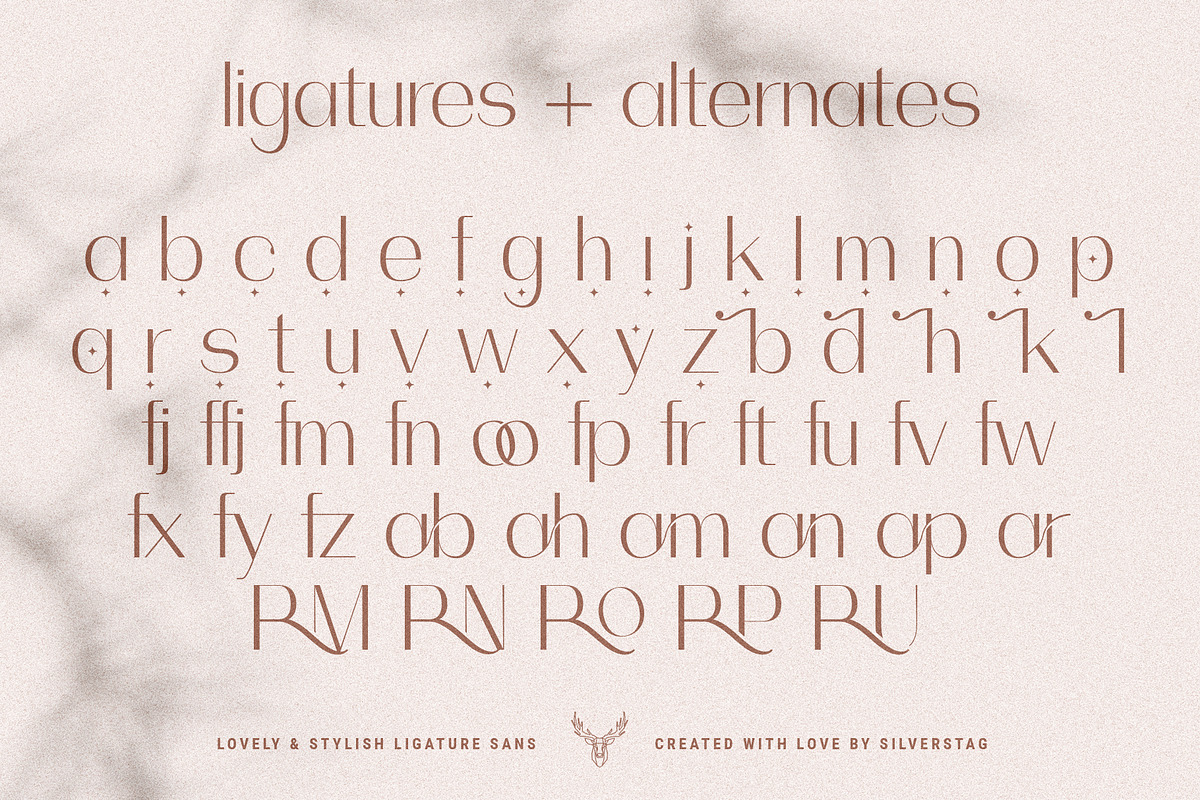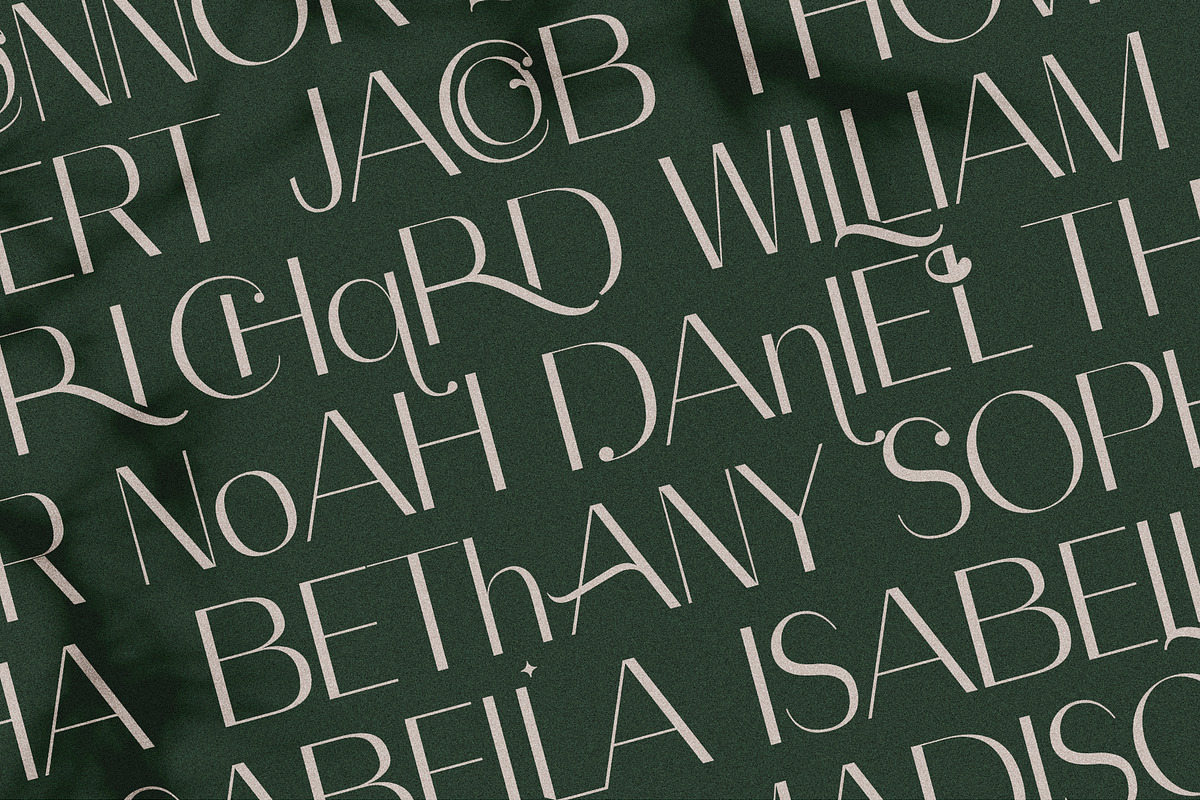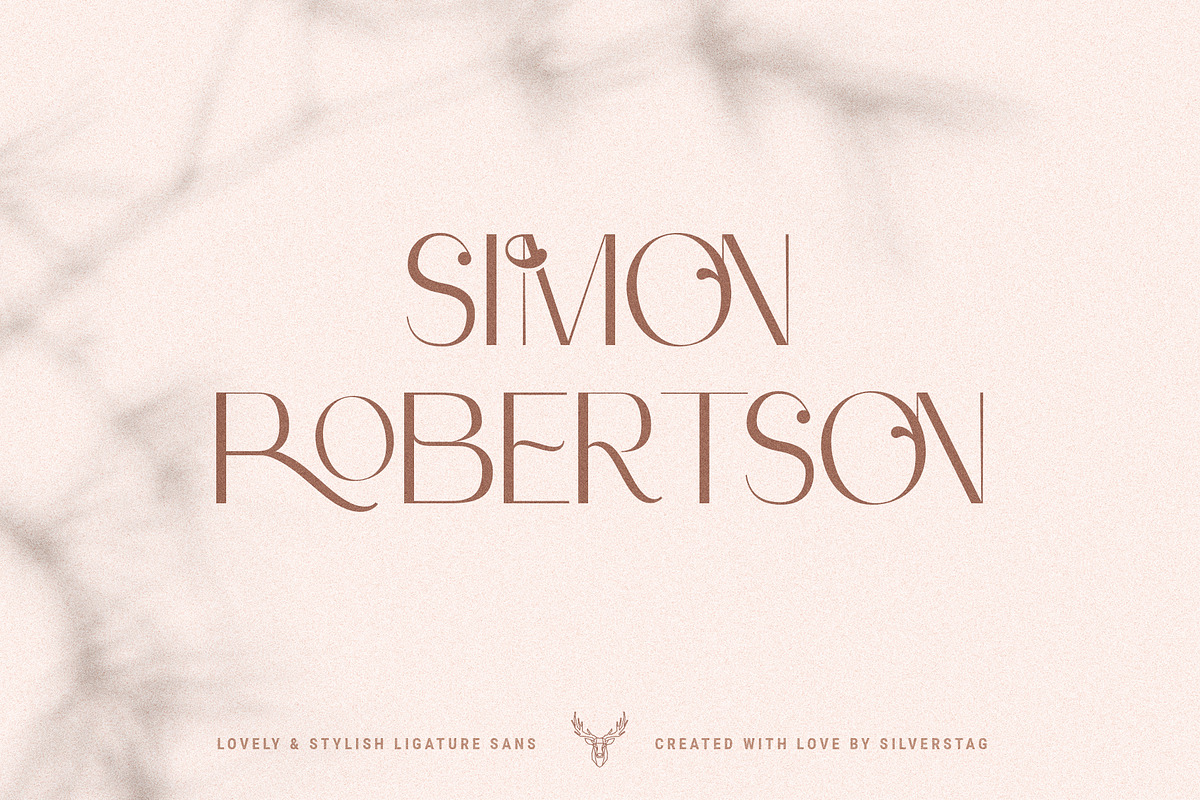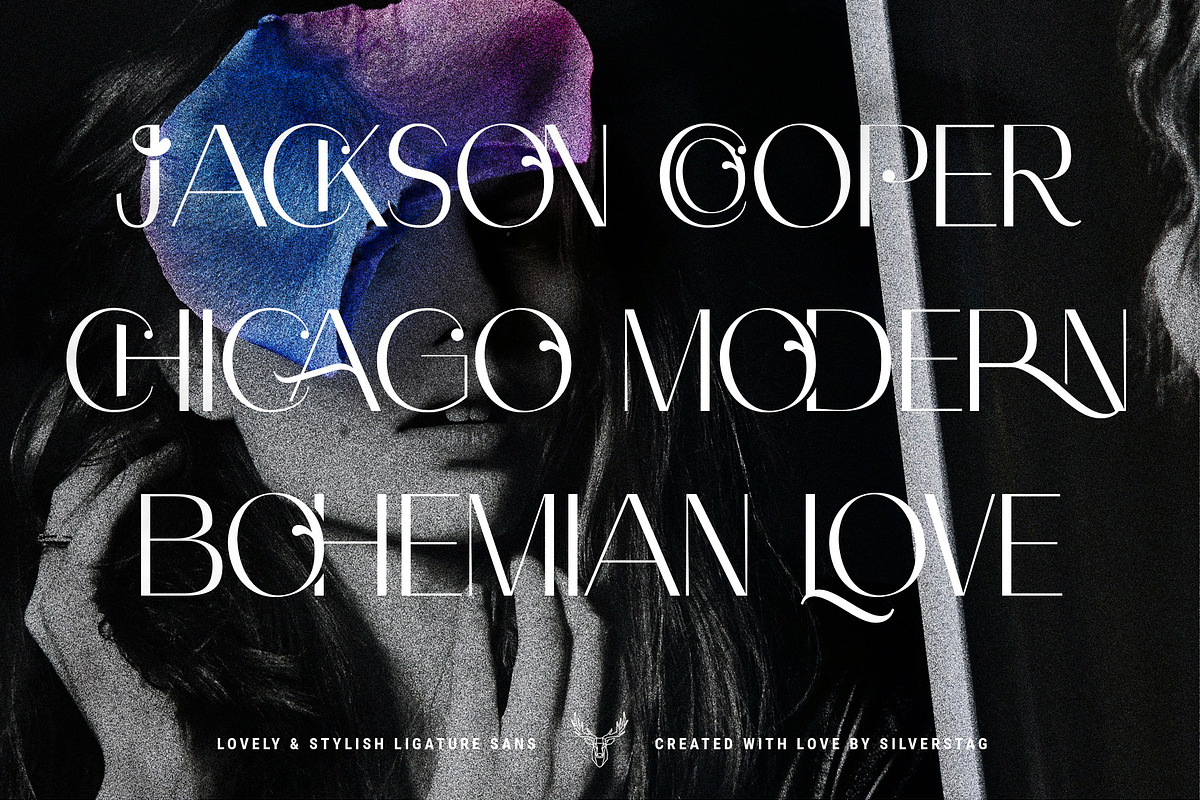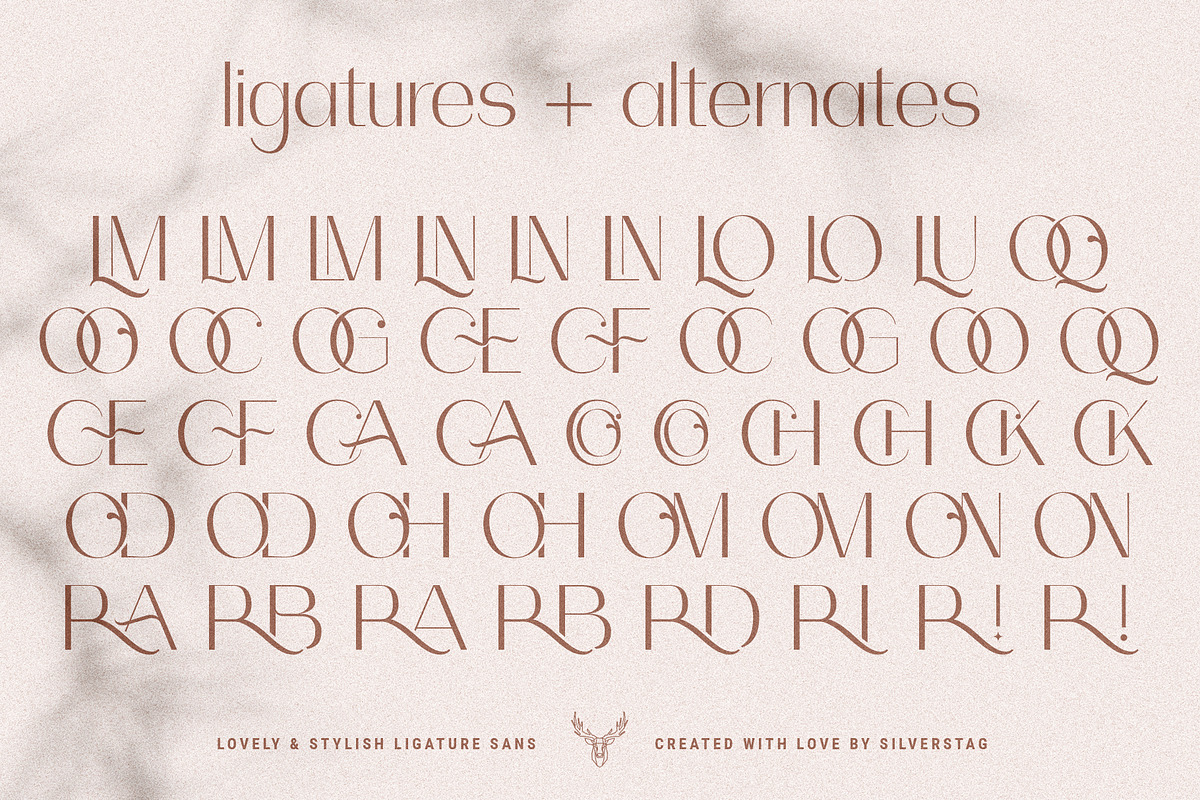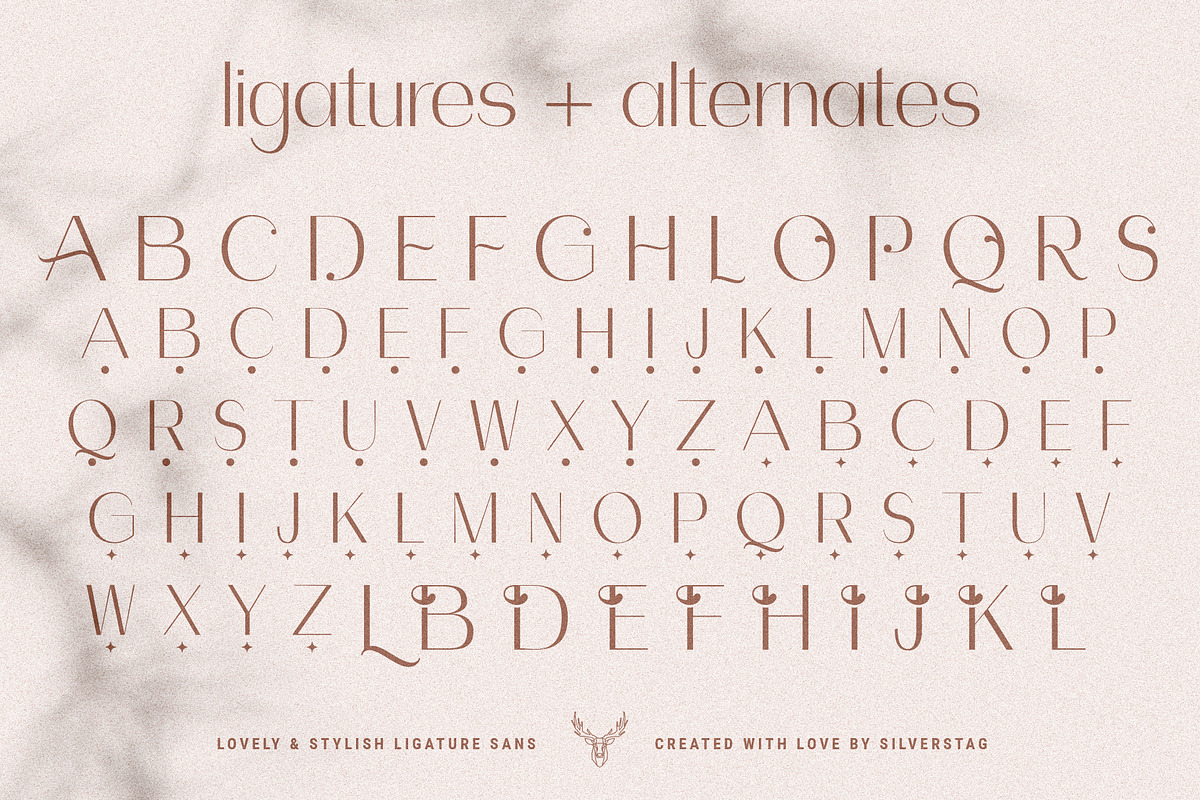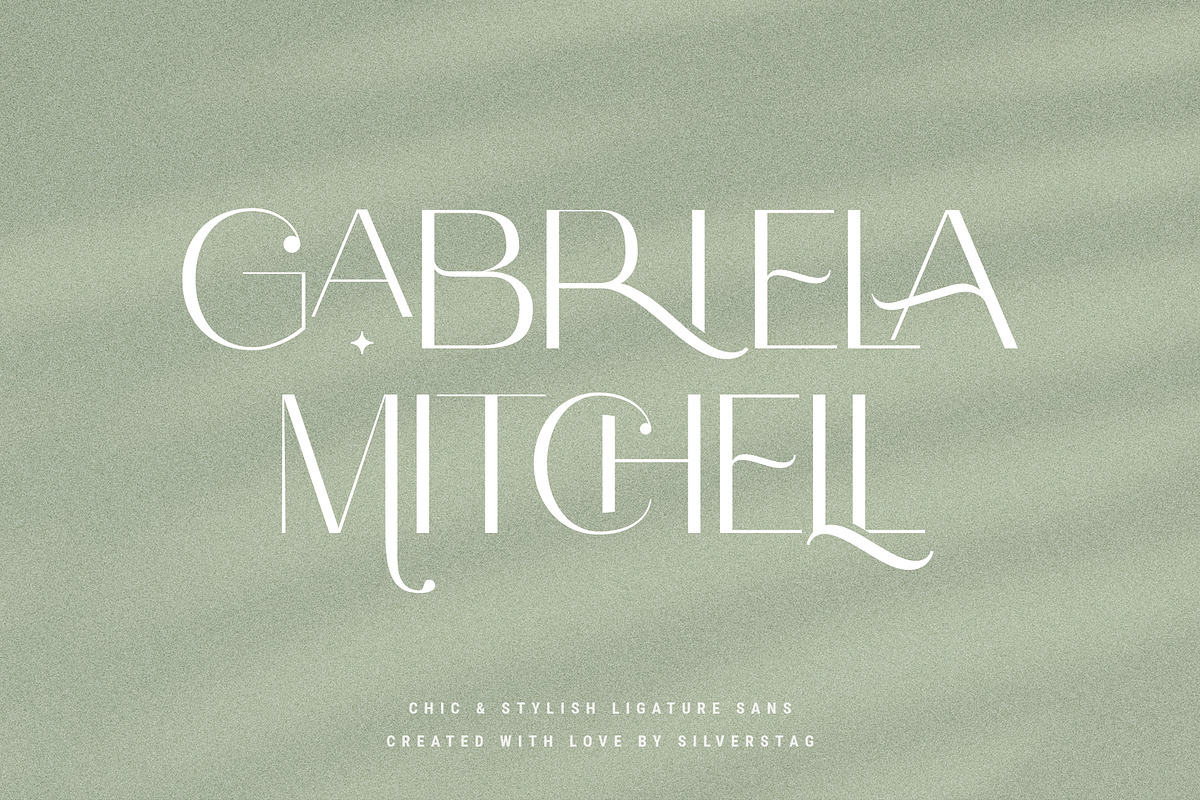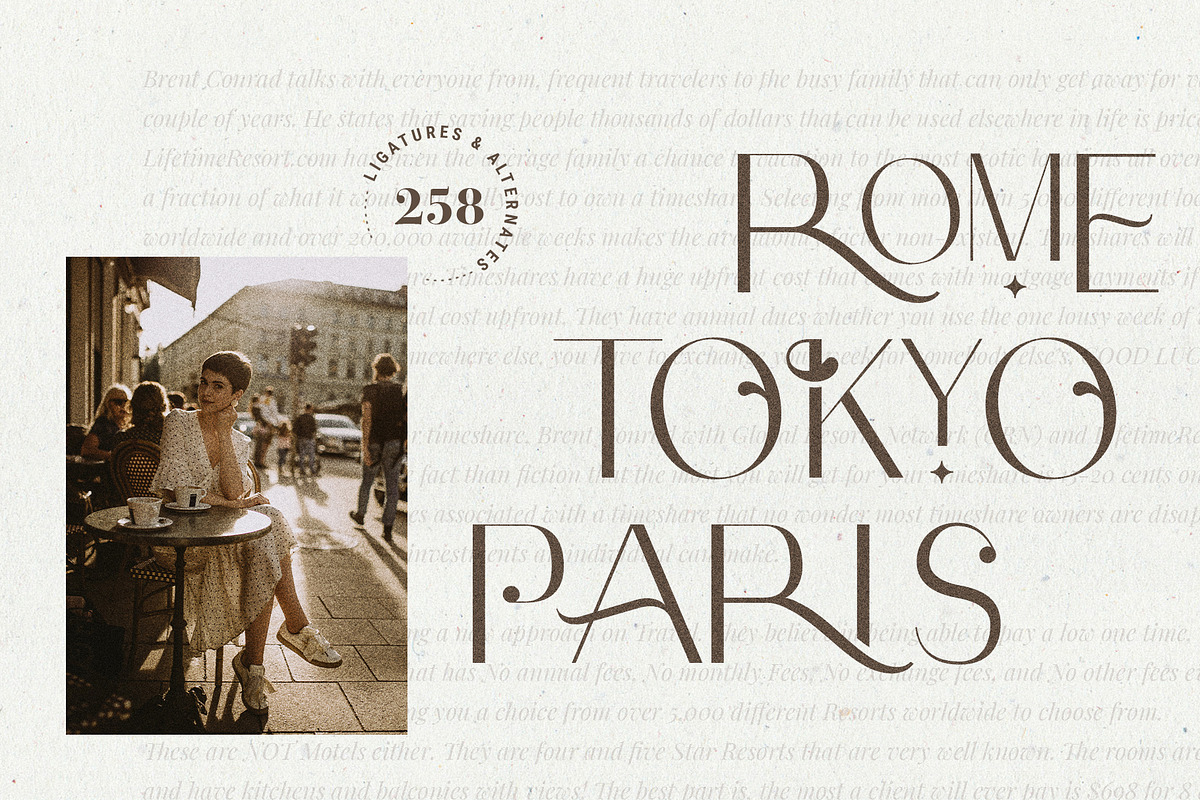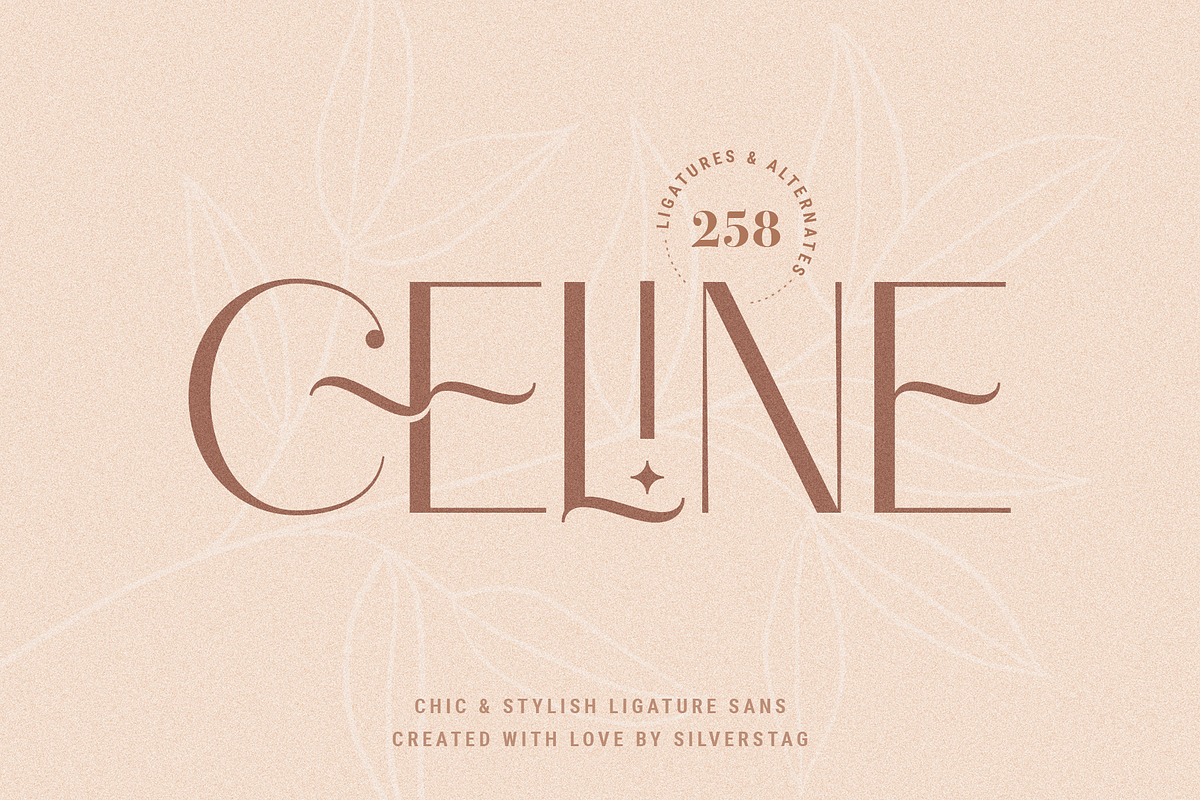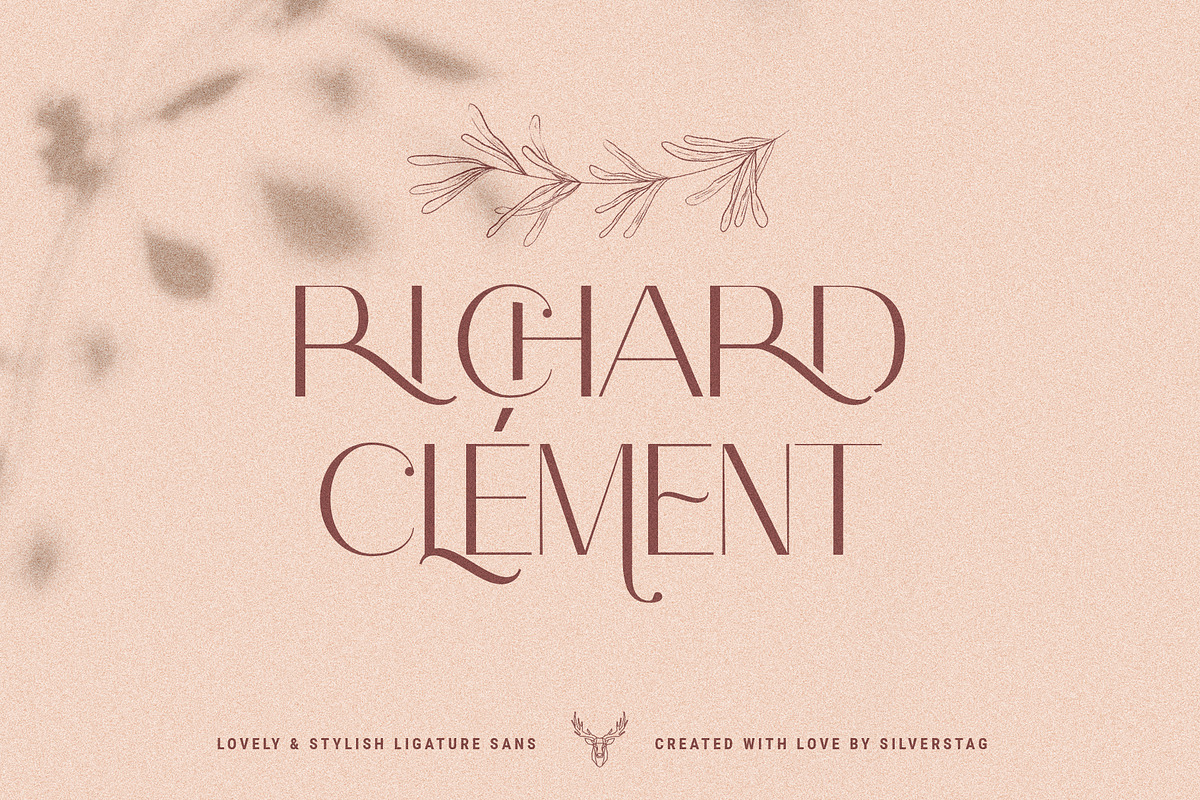
Celine - Chic Ligature Sans & Extras
Celine is a beautiful and stylish sans serif font that comes with a huge number of alternate letters, ligatures, full language support so you can use it for whatever project you are working on. I have been working on this font for quite some time and I have included 258 different alternate letters and ligatures for you. Using them will make your design unique and different. But it doesn't end there, I have included over 240 hand-drawn graphics organic shapes, lines, foliage, and line art so you can complement your designs and client projects.
Celine - Chic Ligature SansFont includes:
- 258 Ligatures & Alternate letters
- Over 240 hand-drawn graphics, organic shapes, lines, foliage, and line art
- Lowercase and Uppercase letters
The following letters are included: A À Á Â Ã Ä Å C Ç D Ð E È É Ê Ë I Ì Í Î Ï N Ñ O Ø Ò Ó Ô Õ Ö U Ù Ü Ú Û W Ẃ Ŵ ẄẀ Y Ý Ÿ Ỳ Ÿ Æ Œ ß Þ þ and many many more, in uppercase and lowercase so Celine supports a huge number of languages.